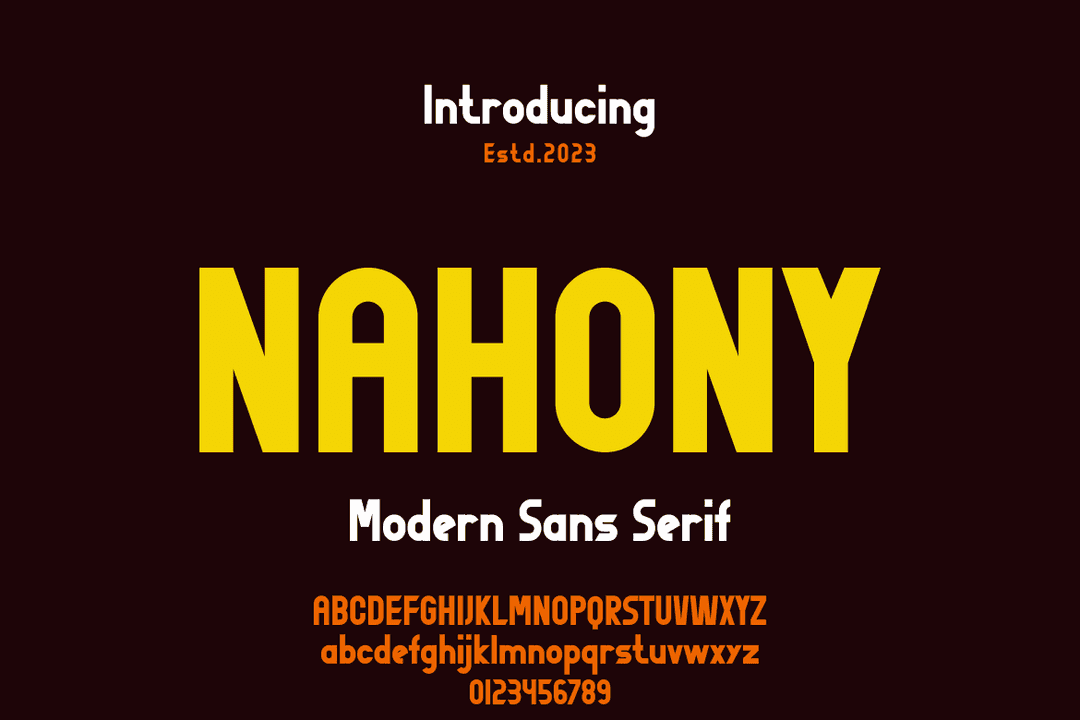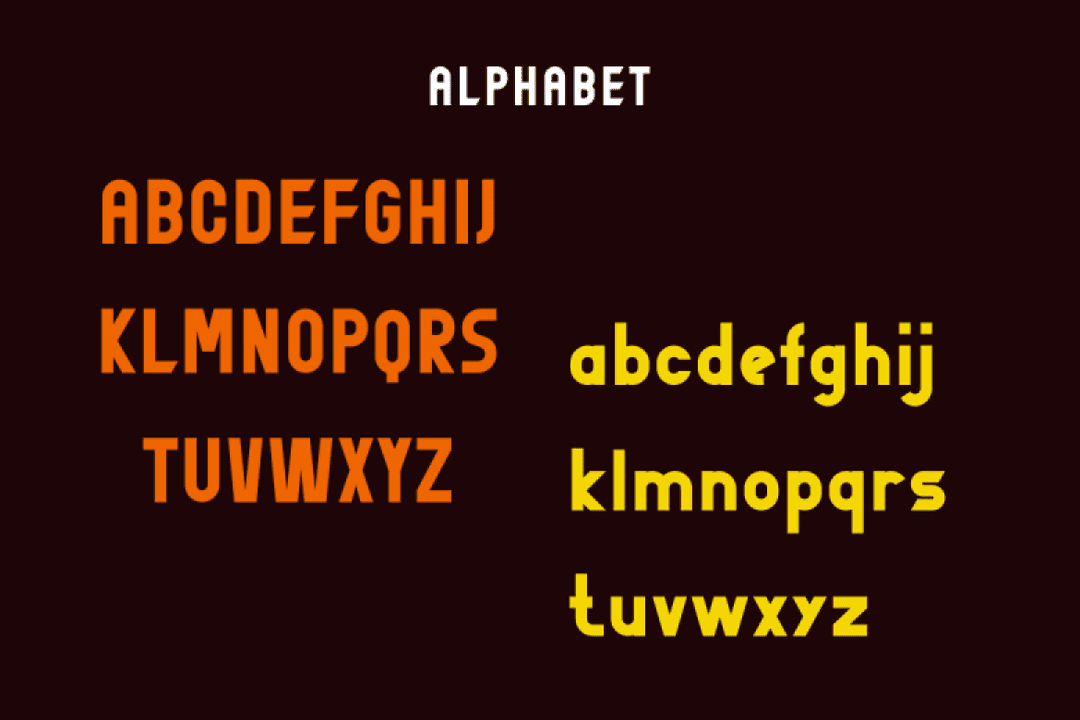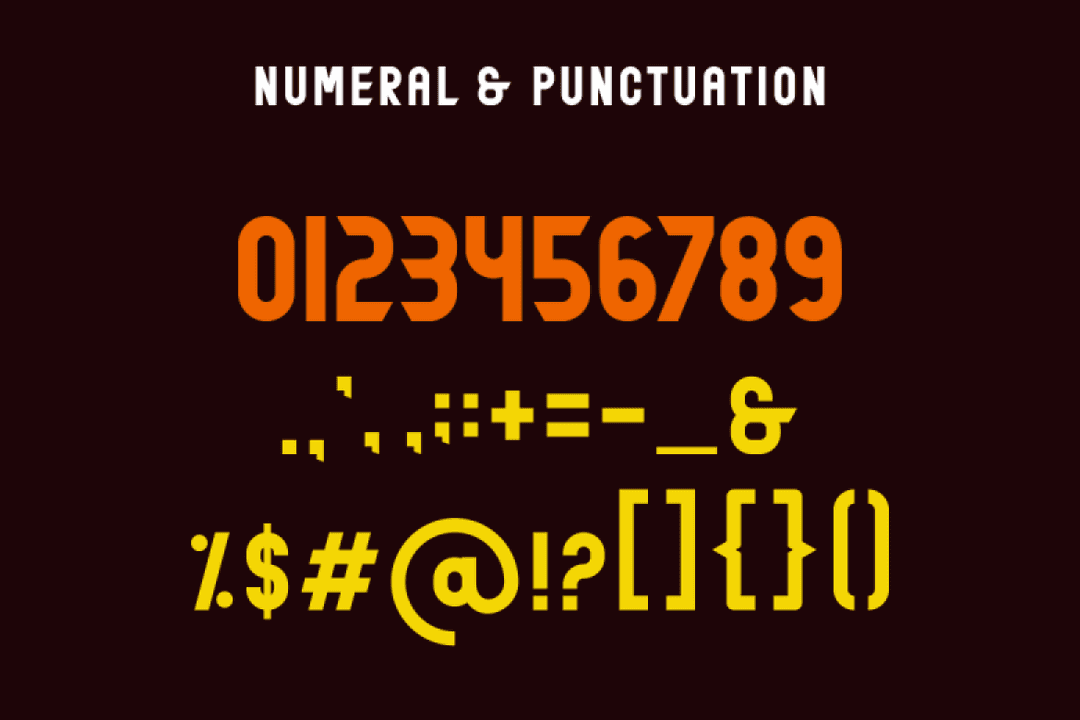
Nahony is a striking and authentic font with no serifs that works well for branding projects such as printing on T-shirts, logos, esports team uniforms or other applications. It stands out in many situations and environments.